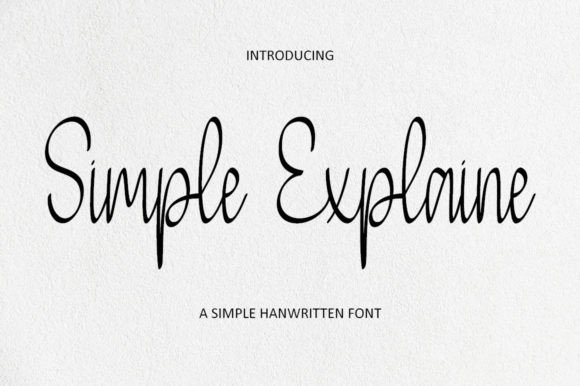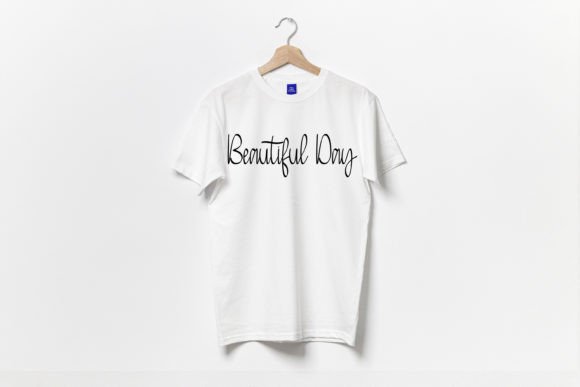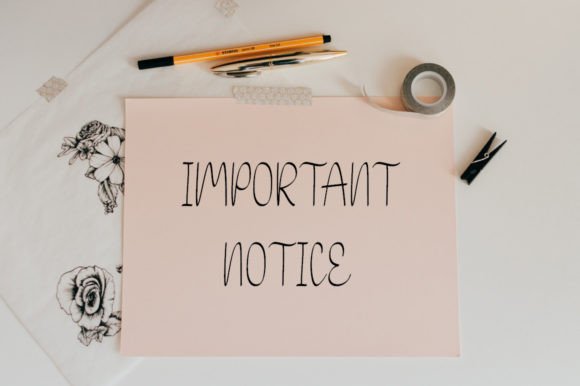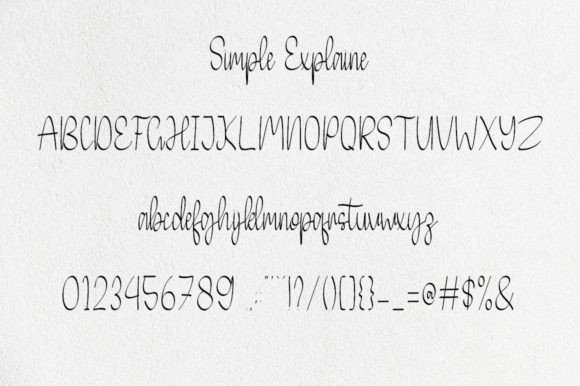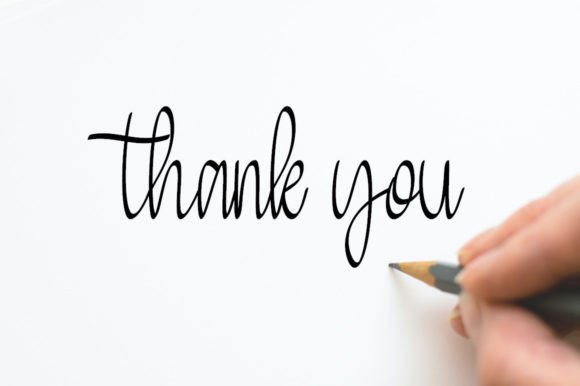
Simple Explaine Font
About Simple Explaine Font
Simple Explaine font is a beautifully crafted handwritten typeface that brings charm and elegance to any design project. Its refined and natural look makes it ideal for adding a personalized touch to your creative work. Whether you are designing wedding invitations, thank you cards, or logos, this font offers and sophistication.
Elegant and Charming Handwritten Style
The Simple Explaine font features smooth, flowing strokes that mimic the warmth of real handwriting. This elegance is balanced with a clean, readable form, which makes it suitable for both large display text and smaller detailed copy. The font’s charm lies in its ability to feel personal and genuine without sacrificing professionalism. This makes it an excellent choice for designers who want to blend creativity with classic style.
Versatile Uses Across Various Projects
Simple Explaine font can be applied in many design scenarios, including but not limited to:
• Wedding Invitations: Enhance your special day’s invites with a font that reflects elegance and love.
• Thank You Cards: Convey gratitude with a warm, handwritten feel that your recipients will appreciate.
• Quotes and Posters: Make inspirational words stand out with a font that captures attention and emotion.
• Logos and Branding: Add a sophisticated, vibe to your brand identity that sets you apart.
• Business Cards: Impress clients with a stylish and memorable typeface.
This font’s versatility makes it suitable for formal, creative, and personal designs alike.
Why Choose Simple Explaine Font?
Choosing Simple Explaine font means investing in a -that combines beauty and functionality. It enhances readability while maintaining a that feels warm and inviting. Its clean lines ensure that your projects will look and professional. Whether you are working on digital media or print, this font will elevate your design with its elegant presence.